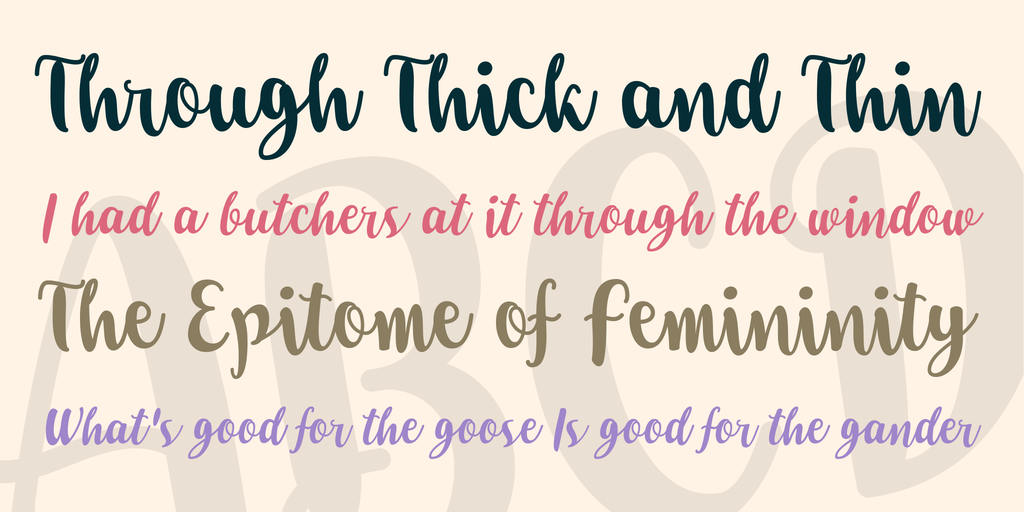
Discover the Charm of Dohearts Font: A Creative Marvel by Situjuh Nazara
In the vast and ever-evolving world of typography, new fonts emerge, each with its unique character and story. Among these, the Dohearts font stands out as a distinctive creation by the talented designer, Situjuh Nazara. This article aims to delve into the world of Dohearts, exploring its origins, characteristics, and the creative process behind its development. Whether you’re a designer, crafter, or simply a typography enthusiast, this journey into the realm of Dohearts is sure to captivate your imagination.
The Genesis of Dohearts
Dohearts is a font created by Situjuh Nazara, a name that might not be widely recognized in mainstream media but holds a significant reputation within the niche communities of font designers and enthusiasts. The story of Dohearts begins with Situjuh’s passion for typography and his quest to create something that could stand out in the digital age. With a keen eye for detail and a deep understanding of what makes a font memorable, Situjuh embarked on the journey to craft Dohearts.
Characteristics of Dohearts Font
Dohearts is more than just a collection of letters; it’s an expression of creativity and an invitation to explore the beauty of typography. Here are some of its key characteristics:
- Unique Design: Dohearts boasts a unique design that blends elegance with a touch of whimsy. Each letter is crafted to convey a sense of charm and personality.
- Versatility: This font is designed to be versatile, making it suitable for a wide range of projects, from digital content to print materials.
- Legibility: Despite its unique flair, Dohearts maintains a high level of legibility, ensuring that it can be used in various contexts without compromising readability.
The Creative Process
The creation of Dohearts involved a meticulous process, from conceptualization to the final product. Situjuh Nazara approached this project with a clear vision: to craft a font that would not only be aesthetically pleasing but also convey a sense of warmth and approachability. The process included:
- Research and Inspiration: Gathering inspiration from various sources, including classic typography and modern design trends.
- Design and Refinement: Using digital tools to sketch, refine, and perfect each character, ensuring consistency and quality across the font.
- Testing and Feedback: Testing Dohearts in different contexts and seeking feedback to make necessary adjustments.
Applications of Dohearts Font
Dohearts’ versatility makes it an excellent choice for a variety of applications:
- Graphic Design: Ideal for branding, logos, and marketing materials where a unique touch is desired.
- Digital Content: Perfect for websites, blogs, and social media posts aiming to stand out with a distinctive typography.
- Crafting and DIY Projects: A great addition to any crafter’s toolkit, suitable for handmade cards, journals, and other creative endeavors.
Dohearts font, created by Situjuh Nazara, is a remarkable addition to the world of typography. Its unique blend of elegance and playfulness, combined with its versatility and legibility, makes it a valuable resource for designers and crafters alike. As we explore the capabilities and applications of Dohearts, it becomes clear that this font is not just a collection of characters but a tool for creative expression. Whether you’re looking to add a personal touch to your projects or seeking a distinctive voice for your brand, Dohearts is sure to inspire and enhance your work.
In the hands of creative professionals and hobbyists, Dohearts has the potential to bring a fresh perspective and a touch of charm to various projects. As Situjuh Nazara continues to contribute to the world of typography, we can only anticipate with excitement what future creations will bring. For now, Dohearts stands as a testament to the power of creativity and the enduring appeal of well-crafted typography.